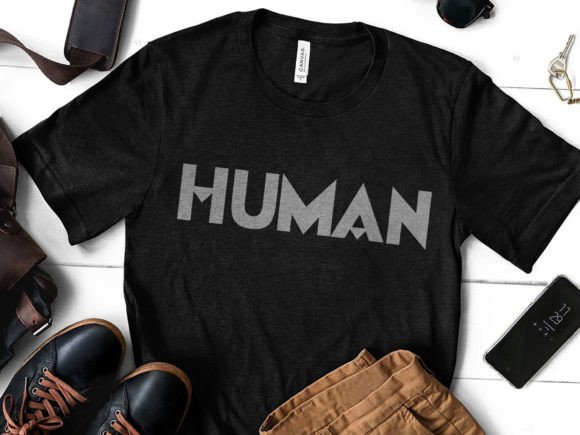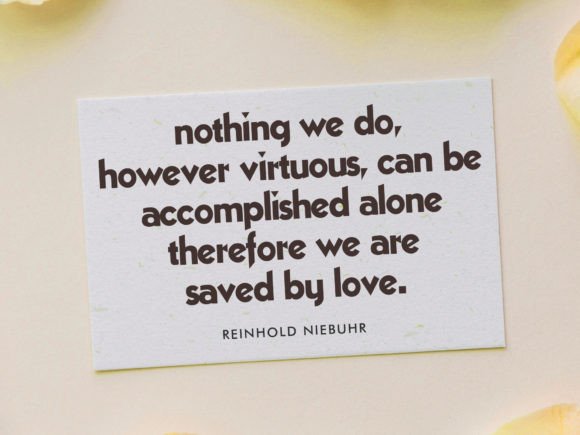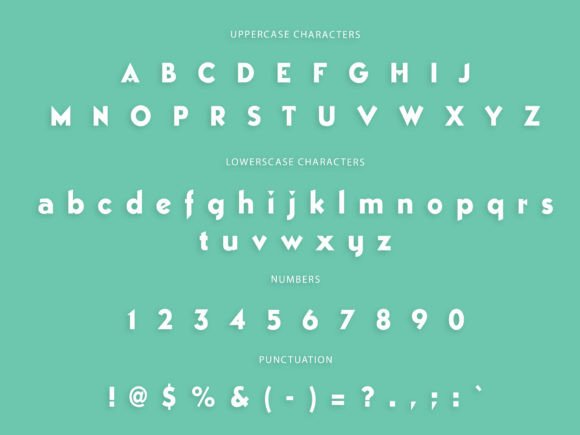
Introduction to Modertica Font
You’re about to embark on a creative project, and you need a font that exudes warmth and approachability. Imagine strolling through a serene forest, surrounded by towering trees and the soothing sounds of nature. The gentle rustle of leaves beneath your feet is the perfect accompaniment to the design process, and that’s exactly what the Modertica Font embodies.
As a designer, you know how crucial it is to find the right font to convey your message. The Modertica Font is a game-changer, offering a perfect balance of masculinity and warmth that makes it ideal for rugged branding, outdoor adventure materials, and strong yet inviting headlines.
With its substantial size and nuanced design elements, the Modertica Font ensures visibility and impact while providing a welcoming, human touch. Whether you’re working on a high-quality design resource or need a font with a transparent background, the Modertica Font is the perfect choice. And the best part? It’s available for free download, making it an invaluable resource for designers of all levels.
Key Features of Modertica Font
- High-quality design resource ideal for creative projects requiring a modern and sophisticated look.
- Perfect for use in a wide range of applications, from print materials to digital designs, due to its high resolution and crisp typography.
- Modertica Font is designed to be highly legible, even at small sizes, making it an excellent choice for presentations, signage, and other visual materials.
Honest Review: Modertica Font
I recently had the chance to work with the Modertica Font, and I must say it’s been a game-changer for my creative projects. The free download made it easily accessible, and I was able to integrate it into my design workflow without any hassle.
Here’s what I love about this font:
- ✨ The sleek and modern design makes it perfect for any high-quality design resource.
- ✨ The transparent background option allows for seamless integration with any image or design element.
- ✨ The font’s versatility makes it suitable for a wide range of creative projects, from logos to typography-based designs.
- ⚠️ The font’s high-quality design comes with a larger file size, which can be a concern for web-based projects.
- ⚠️ The font’s limited character set may not be suitable for projects requiring extensive text.
Overall, I’m thoroughly impressed with the Modertica Font. Its unique design and high-quality features make it an excellent addition to any design resource. While it may have some limitations, I believe the benefits far outweigh the drawbacks. I highly recommend this font for any creative project that requires a modern and sleek aesthetic.
Modertica Font is perfect for a variety of creative projects, including logos, posters, and social media graphics. Its transparent background feature makes it ideal for creating visually appealing graphics with a modern look.